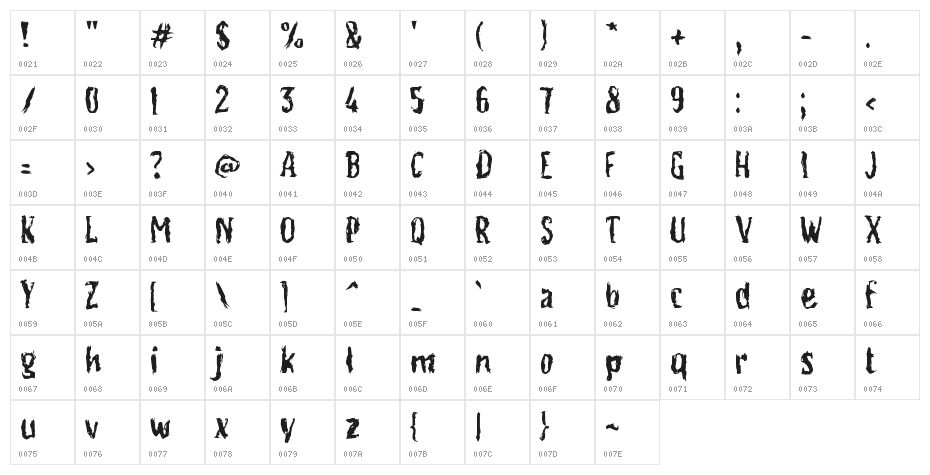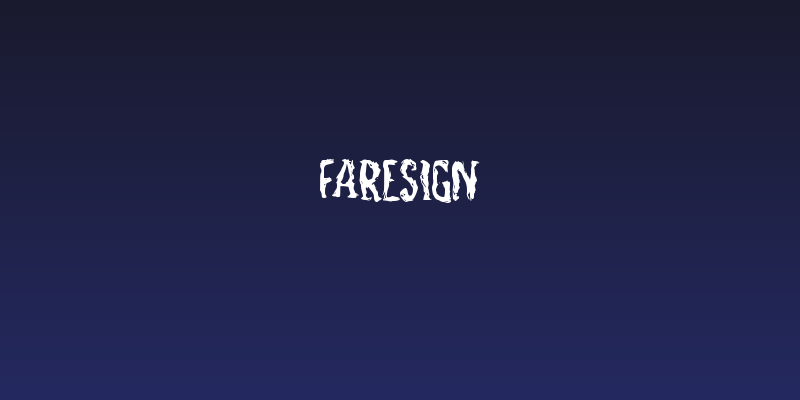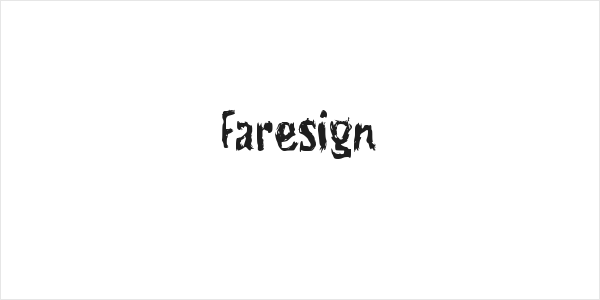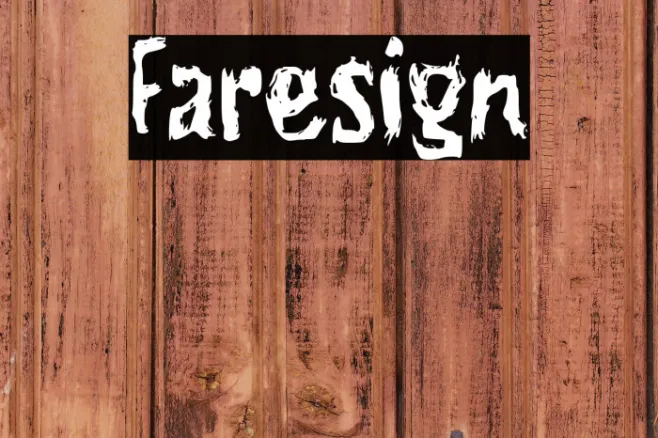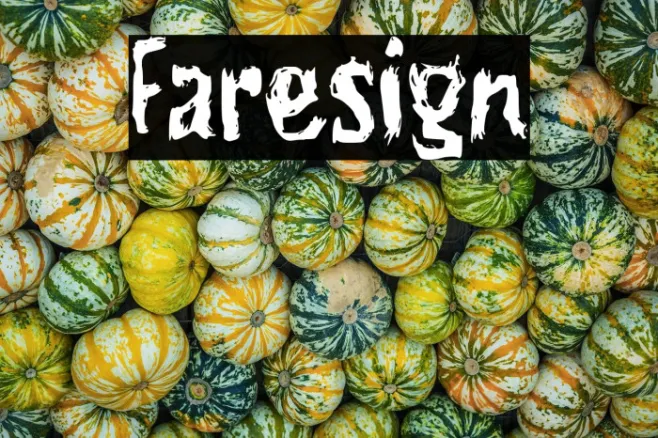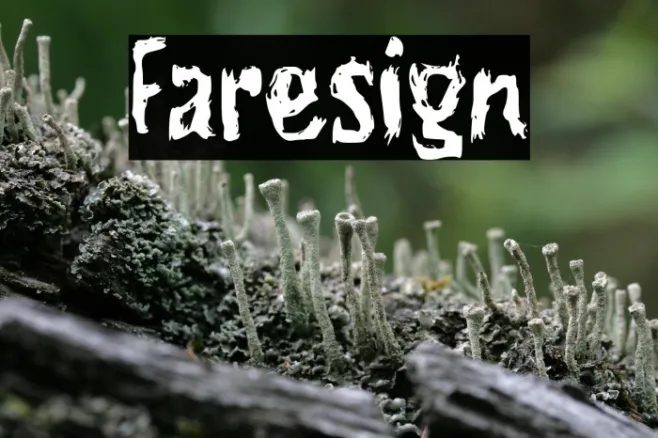
Faresign Font
Faresign Description
This font exhibits a highly decorative and distressed style, characterized by its rough, jagged edges and uneven strokes. The letters appear as if they are torn or eroded, giving a dynamic and chaotic appearance. The uppercase and lowercase letters maintain a consistent style, with each character uniquely crafted to enhance the overall rugged aesthetic. The numerals and special characters follow the same design principles, ensuring a cohesive look across all elements. This font's bold and dramatic presence makes it ideal for attention-grabbing designs.